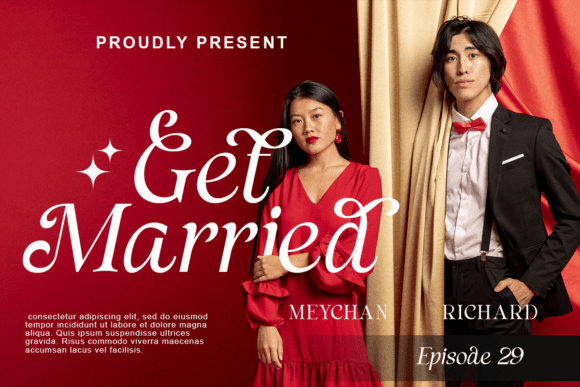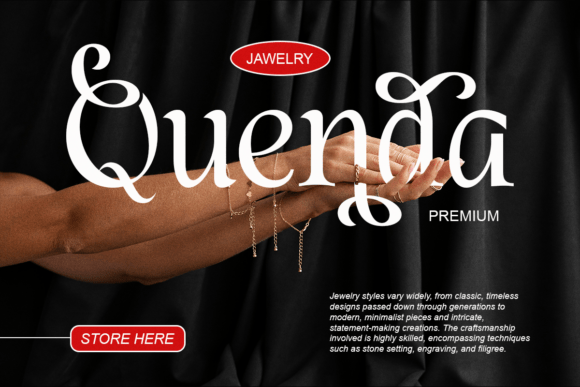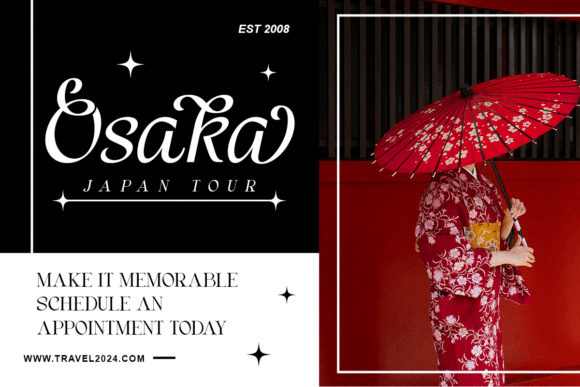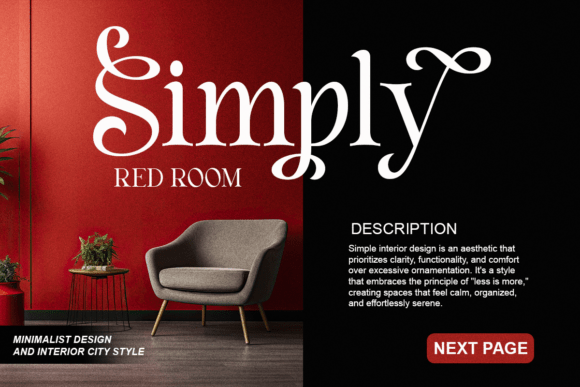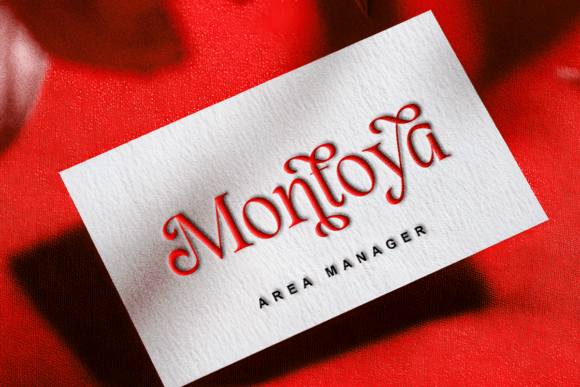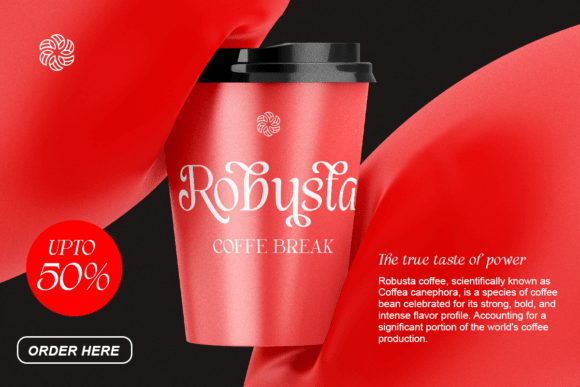
Creating a Lasting Impression
Do you remember the first time you saw a beautifully crafted font that left an indelible mark on your mind? For many designers, this moment sparks a desire to create something equally captivating. The art of typography is a delicate dance between aesthetics and emotion, and when done right, it can elevate even the most mundane message into a work of art.
Enter Always Memorable Font, a luxury serif font that embodies the essence of timeless elegance. Designed to evoke a sense of romance and sophistication, this font is perfect for luxury branding, lifestyle logos, wedding invitations, and editorial titles. With its curved alternates and flexibility in Italic and Regular styles, Always Memorable Font offers designers the versatility they need to create truly unforgettable designs.
For designers looking to make a lasting impression, Always Memorable Font is a valuable addition to their toolkit. Its classic charm and modern flair make it an ideal choice for projects that demand sophistication and style.
Always Memorable Font Key Features
- Font Styles: Always Memorable Font comes in 7 different styles, including Regular, Italic, Bold, Bold Italic, and 4 additional decorative styles, making it perfect for various design applications.
- Character Set: Always Memorable Font includes a comprehensive character set, covering Latin, Greek, and Cyrillic alphabets, as well as a wide range of punctuation and symbols.
- Unique Characteristics: The font features a unique, hand-drawn design with intricate details and flourishes, making it perfect for creating memorable and attention-grabbing designs.
Review of Always Memorable Font
I recently had the chance to work with the Always Memorable Font, and I have to say it’s a unique find. Here’s what stood out to me:
- Unconventional style: Always Memorable Font has a quirky charm that can add a touch of whimsy to your designs.
- High legibility: Despite its unconventional design, the font is surprisingly easy to read.
- Customization options: The font offers a range of customization options, from font sizes to line heights, making it adaptable to various design needs.
- Compatibility issues: I encountered some compatibility issues with certain software and platforms, which can be frustrating.
- Limited font pairing options: The font’s unique style can make it challenging to pair with other fonts, limiting design flexibility.
Overall, I’d say Always Memorable Font is a great choice for designers looking to add a touch of personality to their work. However, it’s essential to weigh the benefits against the potential limitations, especially when working with commercial clients or on large-scale projects.
Getting the Most Out of the Always Memorable Font
Use the Always Memorable Font to create attention-grabbing headlines and titles. Pair it with a clean and simple font for body text to create a visually appealing contrast. Experiment with different font sizes and colors to create a unique design.
The Always Memorable Font is perfect for:
- Creatives and designers looking for a unique font to make their designs stand out.
- Businesses wanting to create a bold and eye-catching brand identity.
- Marketing professionals looking for a font to grab attention and drive engagement.
Q: What is the recommended font size for Always Memorable Font?
The recommended font size for Always Memorable Font is between 12pt and 24pt, depending on the application and intended use. For body text, a font size of 14pt to 16pt is usually sufficient. For headings and titles, a font size of 18pt to 24pt is recommended. Experiment with different font sizes to find the optimal size for your design.